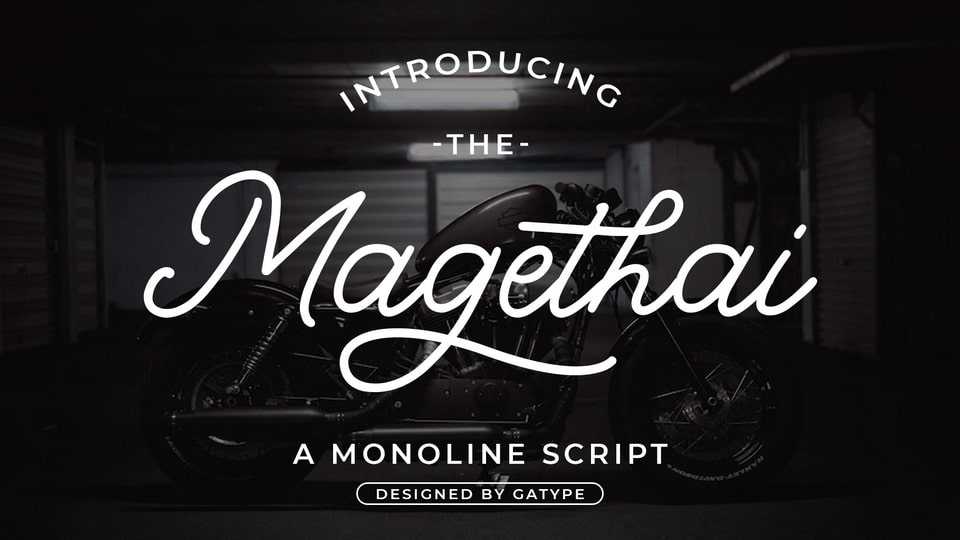
Download Magethai font, a beautiful monoline typeface with a vintage vibe. Perfect for logo design, branding, apparel design, signage, posters, wedding invitations and more.